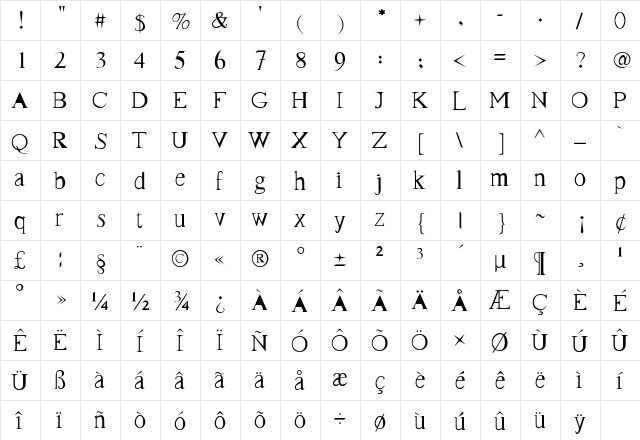
Blankboxer Regular
Design Context for Blankboxer Typeface
Blankboxer offers clean, dependable letterforms without strong stylistic allegiance, making it a practical choice for designers who need flexibility.